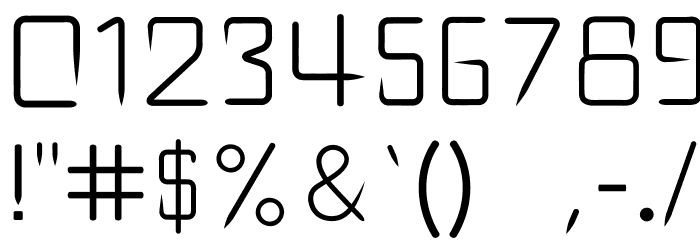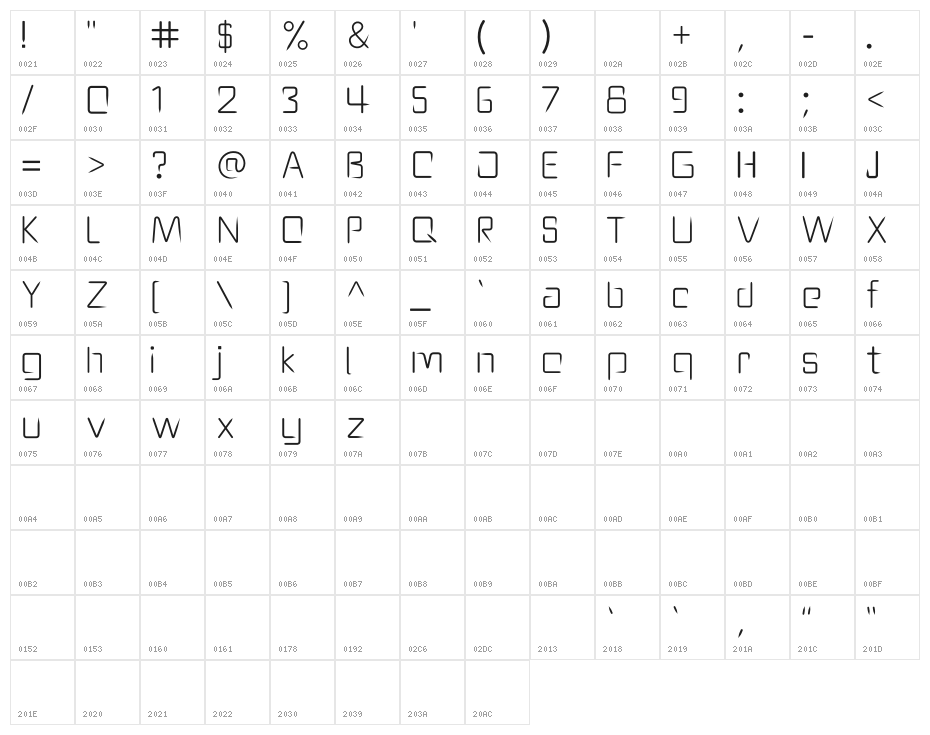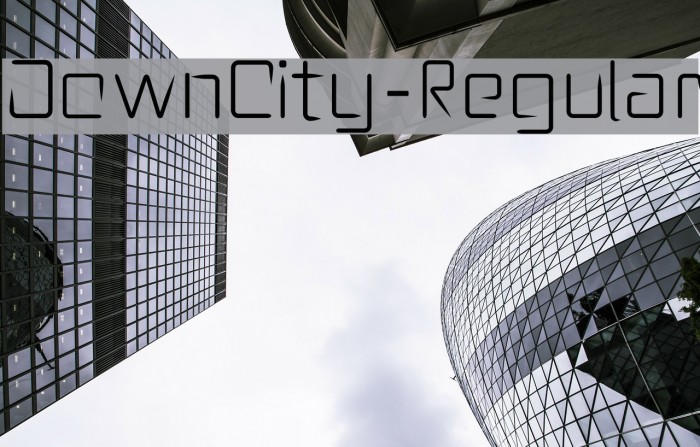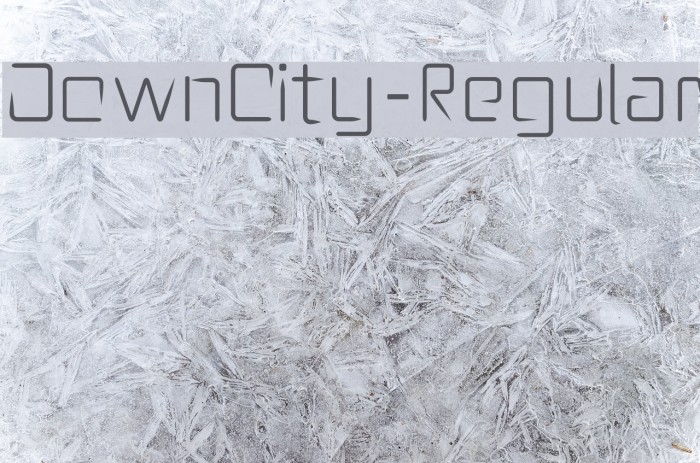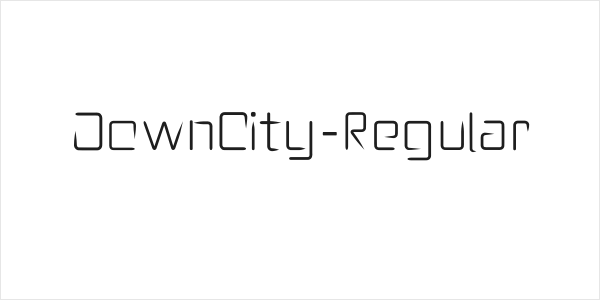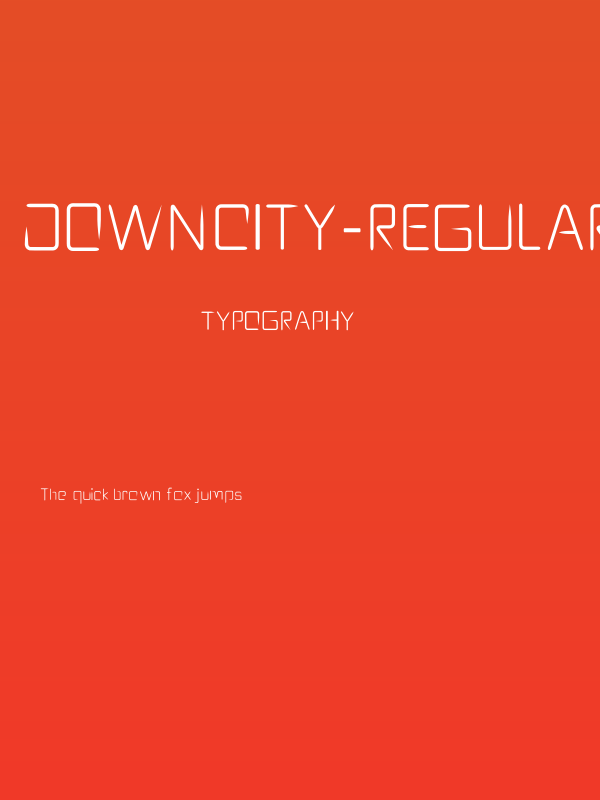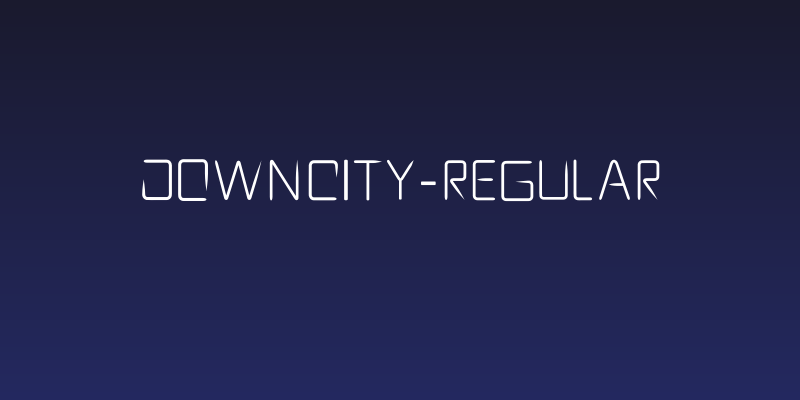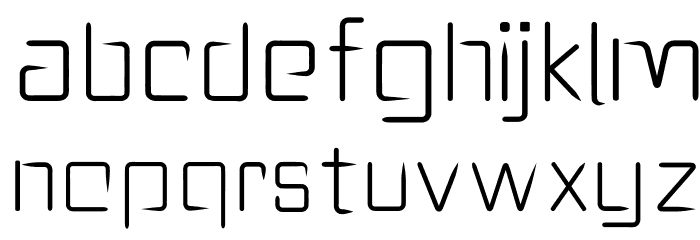
DownCity-Regular Font
DownCity-Regular Description
This font features a modern and sleek design with a geometric structure. The characters are composed of clean, straight lines and rounded edges, giving it a futuristic and technical appearance. The uppercase and lowercase letters maintain a consistent height, contributing to a uniform and orderly look. The numerals are distinct and easily readable, while the special characters are designed to match the overall aesthetic. The font's style is minimalistic, making it suitable for contemporary design projects.
| Use Case | Headlines, Logos, Digital Interfaces |
| Proposed Projects | Ideal for technology branding, modern websites, digital interfaces, and innovative product packaging. |